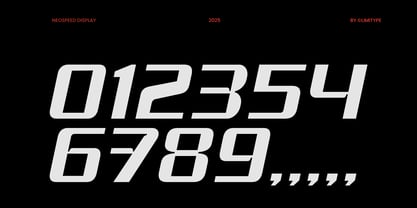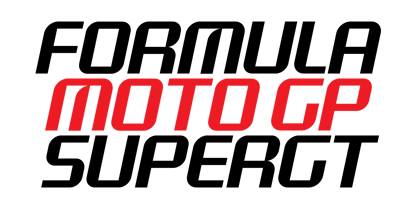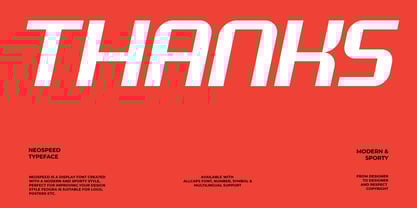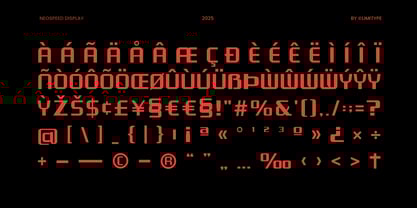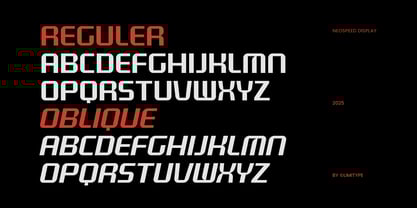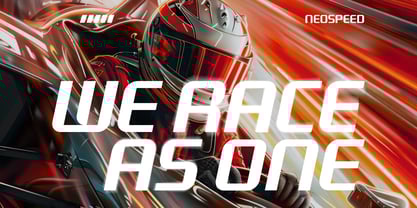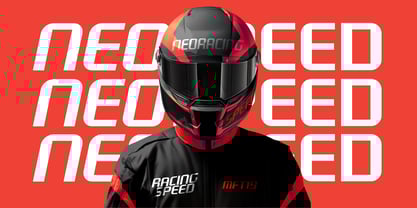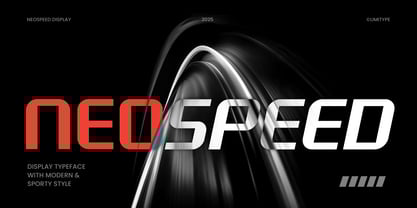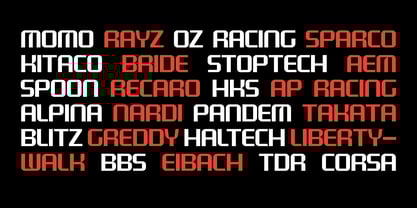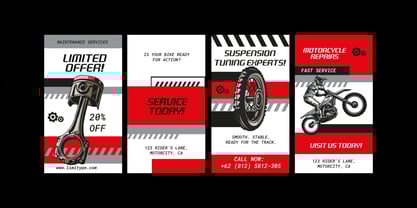
Neospeed
The Neospeed Font Family was designed by Muhammad Muammar, Furqan Sudirman and published by limitype. Neospeed contains 2 styles and family package options.
Neospeed is a futuristic typeface with dynamic and modern forms, perfect for designs that demand a sense of speed, energy, innovation, and forward thinking aesthetics. Ideal for tech, automotive, gaming, and sci-fi themed projects, Neospeed delivers a futuristic visual identity to elevate your creative work.
Neospeed available with:
-Allcaps
-Number
-Symbol
-Multilingual